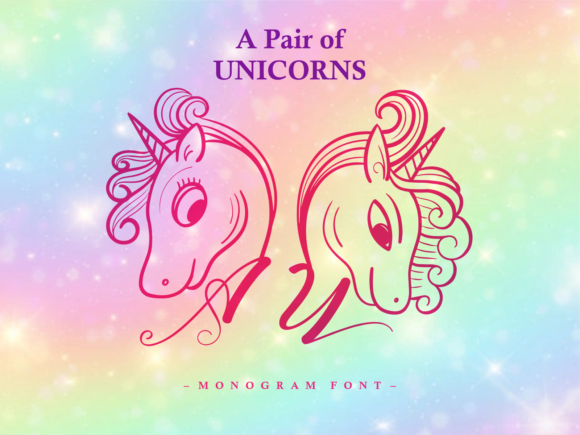
Unleash the Magic of A Pair of Unicorns Font
Have you ever been brainstorming a design project and suddenly, a spark of creativity hits you? For many designers, this moment is the most thrilling part of the process. It’s the moment when the ideas start flowing, and the possibilities become endless. This time, I’m excited to share with you a font that will transport you to a world of whimsy and wonder – A Pair of Unicorns Font.
This enchanting decorative font features adorable unicorns as ornaments, adding a touch of magic to any design. Whether you’re creating wedding invitations, stationery art, or social media posts, A Pair of Unicorns Font is the perfect choice to make your designs stand out. As a designer, you’ll appreciate the versatility and uniqueness of this font, making it a valuable addition to your creative toolkit.
A Pair of Unicorns Font Key Features
- Font Family: A Pair of Unicorns, a whimsical and playful script font.
- Character Count: 250+ glyphs, including uppercase and lowercase letters, numerals, punctuation, and special characters.
- Unique Characteristics: Features hand-drawn, cursive lines and flourishes, giving it a personal and artistic touch.
A Pair of Unicorns Font Review
As a designer, I was excited to dive into the “A Pair of Unicorns Font” and see what it had to offer. ✨ The whimsical and playful feel of the font immediately caught my eye, and I could see it working well for projects that needed a touch of magic. The font is a great choice for anything from children’s book covers to fantasy-themed artwork.
The font is well-structured and easy to read, even at smaller sizes. The designer has done a great job of balancing the bold and delicate lines to create a cohesive look. ✨ The unicorns themselves are adorable and add a fun touch to any design. I also appreciated the variety of unicorns included in the font, each with its own unique expression.
- ⚠️ Limited language support, which may be a concern for designers working on multilingual projects.
- ⚠️ The font may not be suitable for formal or professional projects, as it has a more playful tone.
- ⚠️ Some users may find the unicorns a bit too cartoonish, which may not appeal to those looking for a more realistic font.
Overall, I would give the “A Pair of Unicorns Font” 4 out of 5 stars. It’s a great choice for designers looking for a fun and whimsical font, but it may not be suitable for all projects. With a bit more development to address the limitations, I think this font has the potential to be a true standout in the design community.
Getting the Most Out of the Font
For best results, use the A Pair of Unicorns font in bold, playful designs that incorporate whimsical elements. The font’s unique style pairs well with illustrations, graphics, and other creative elements.
The A Pair of Unicorns font is perfect for:
- Whimsical greeting cards
- Magazine and newspaper headlines